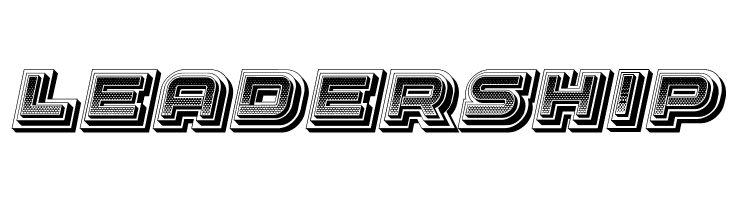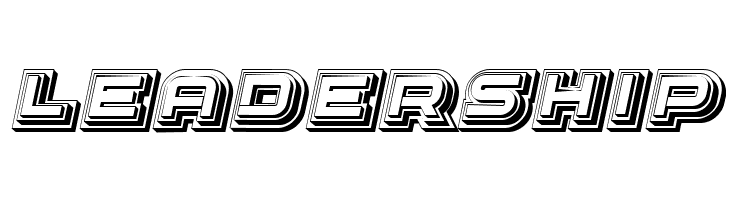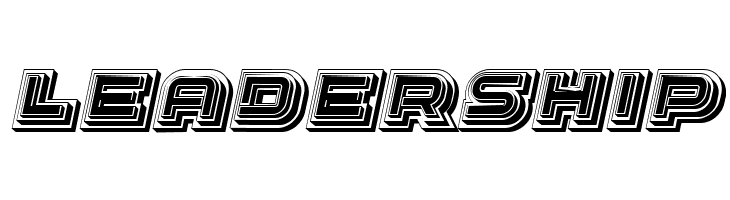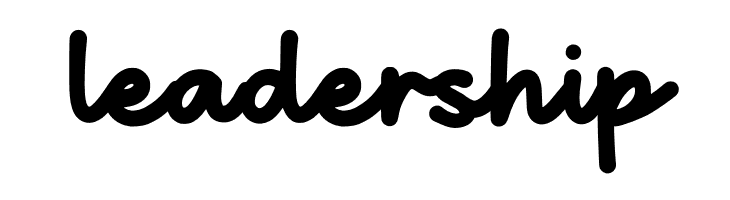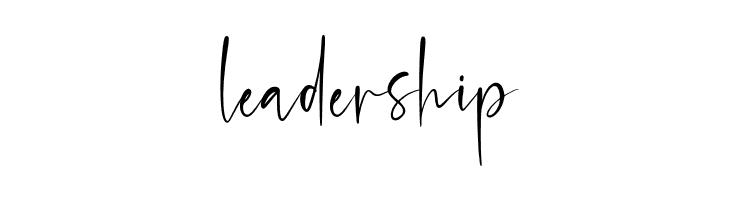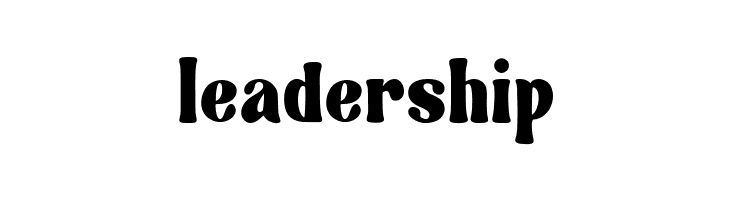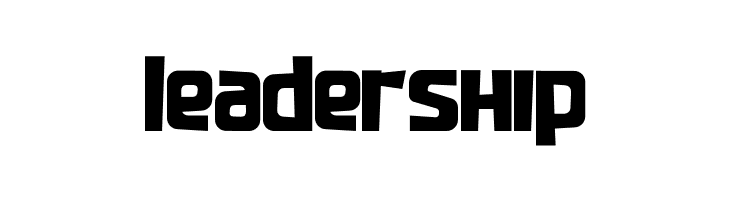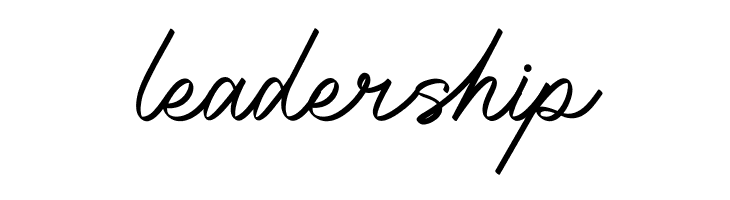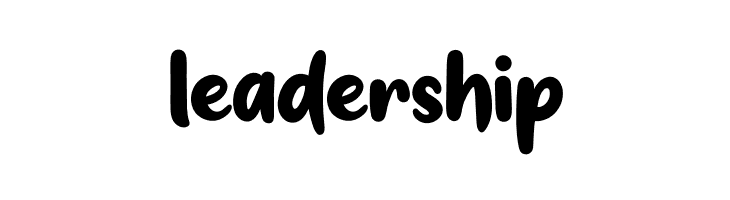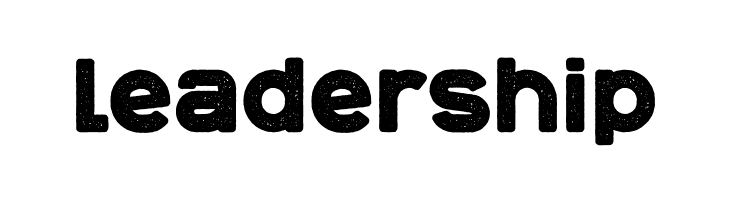
A refined, high-contrast typeface with elongated strokes and elegant curves.
A graceful, cursive script with a modern twist, perfect for elegant designs.
A charming handwritten font with elegant, flowing letterforms and decorative flourishes.
A lively and expressive handwritten font with fluid, dynamic strokes.
A bold, playful handwritten font with rounded edges and a casual style.
A playful, bold font with rounded, bubbly characters.
A bold, vintage-style font with rounded, condensed characters.
A bold, italic font with a dynamic, modern style and uniform stroke thickness.
A modern, geometric font with clean lines and a minimalist aesthetic.
An elegant serif font with high contrast and sharp serifs, perfect for classic and sophisticated designs.
A bold, gothic-inspired font with sharp, angular edges.
A playful, handwritten-style font with rounded, consistent strokes.
A bold, gothic-inspired font with sharp, angular edges and a distressed look.
A dynamic and flowing script font with elegant, fluid letterforms.
A bold, geometric font with a retro 3D video game aesthetic.
A bold, geometric font with a futuristic, digital aesthetic.
A bold, 3D block font with a futuristic digital style.
A bold, italicized font with a sporty and dynamic style.
A sophisticated script font with elegant, flowing cursive strokes.
A lively, expressive script font with a handwritten feel and elegant curves.
A modern, cursive script font with smooth, connected strokes and elegant curves.
A dynamic, expressive handwritten font with fluid strokes and artistic flair.
An elegant script font with flowing, high-contrast strokes and intricate details.
An elegant, fluid cursive script font with seamless letter connections.
An elegant, flowing handwritten font with cursive strokes and decorative flourishes.
A lively and flowing handwritten font with elegant, fluid strokes.
A bold, futuristic font with a three-dimensional effect and geometric design.
A bold, hollow, and layered font with a futuristic and dynamic style.
A bold, layered font with a retro 3D effect and geometric structure.
A bold, geometric font with a modern and edgy style.
A bold, geometric font with a modern and dynamic style.
A bold, playful handwritten font with rounded edges and a strong visual impact.
A bold, rounded font with a distressed, vintage texture.
A charming and elegant script font with a handwritten appearance.